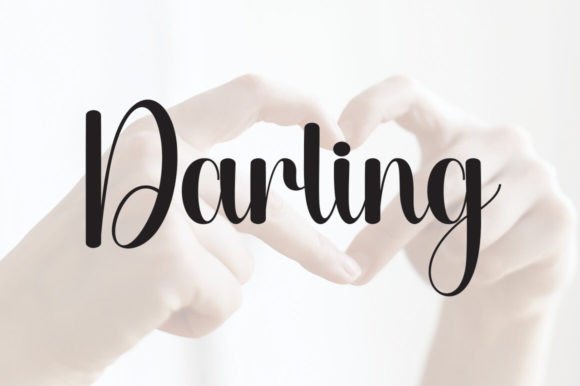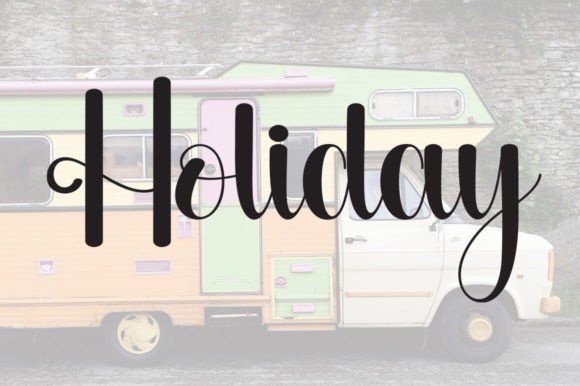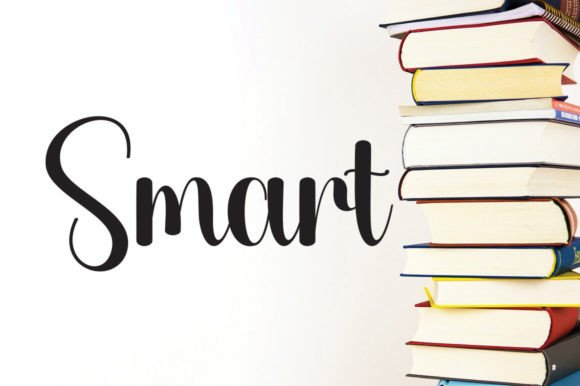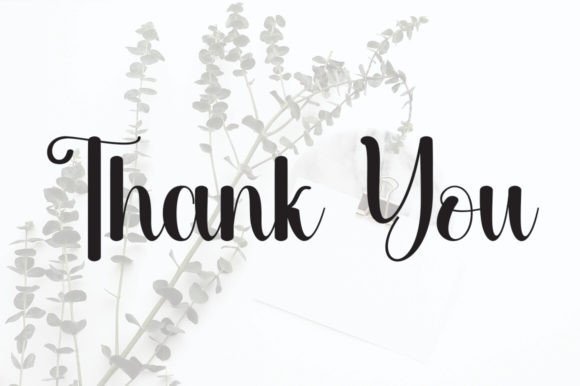
Introducing Big Boho: The Delightful Cursive Handwritten Font
In the world of design, fonts play a crucial role in conveying the tone and personality of a project. If you’re looking for a font that exudes charm, whimsy, and romance, look no further than Big Boho. This beautifully crafted cursive handwritten font is a perfect blend of sweetness and fluidity, making it an ideal choice for designers and crafters who want to add a touch of magic to their designs.
The Allure of Big Boho
Big Boho is more than just a font – it’s an experience. Its delicate curves and flowing lines evoke a sense of joy and playfulness, making it perfect for projects that require a touch of whimsy. Whether you’re designing a wedding invitation, a branding campaign, or a social media graphic, Big Boho’s irresistible allure will capture the hearts of your audience. With its unique blend of elegance and playfulness, this font is sure to make your designs stand out from the crowd.
A Harmonious Blend of Sweetness and Fluidity
One of the defining features of Big Boho is its harmonious blend of sweetness and fluidity. The font’s cursive script is carefully crafted to create a sense of movement and flow, making it perfect for designs that require a touch of dynamism. At the same time, its sweet and delicate curves add a touch of femininity and charm, making it ideal for projects that require a more feminine touch.
Perfect for a Wide Range of Design Concepts
Big Boho is a versatile font that can be used for a wide range of design concepts. Whether you’re designing a logo, a brochure, or a social media graphic, this font is sure to make your project shine. Its unique blend of elegance and playfulness makes it perfect for:
- Branding campaigns and logos
- Brochures and flyers
Unleash the Potential of Big Boho
Big Boho is more than just a font – it’s a design tool that can help you transform your projects into gorgeous visual narratives. With its unique blend of charm, elegance, and playfulness, this font has the power to elevate your designs and make them truly shine. Whether you’re a designer, a crafter, or a DIY enthusiast, Big Boho is the perfect choice for anyone who wants to add a touch of magic to their projects.
Why Choose Big Boho?
So why choose Big Boho over other fonts? Here are just a few reasons why this font stands out from the crowd:
- Unique and distinctive design
- Perfect blend of sweetness and fluidity
- Versatile and can be used for a wide range of design concepts
Tips for Using Big Boho
Here are a few tips for using Big Boho in your designs:
- Use it as a headline font to add a touch of elegance and sophistication
- Pair it with a sans-serif font for a modern and playful look
- Use it to create a sense of movement and flow in your designs
In conclusion, Big Boho is a delightful cursive handwritten font that exudes charm, whimsy, and romance. Its unique blend of sweetness and fluidity makes it perfect for a wide range of design concepts, from wedding invitations to branding campaigns. With its versatility, elegance, and playfulness, Big Boho is the perfect choice for designers and crafters who want to add a touch of magic to their projects. So why wait? Unleash the potential of Big Boho and see it transform your designs into gorgeous visual narratives.